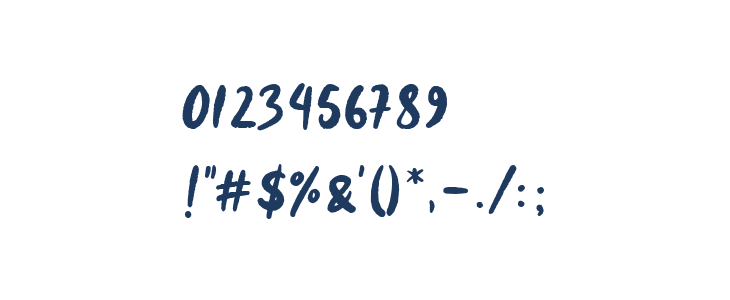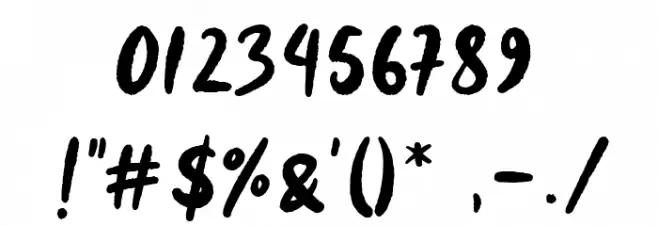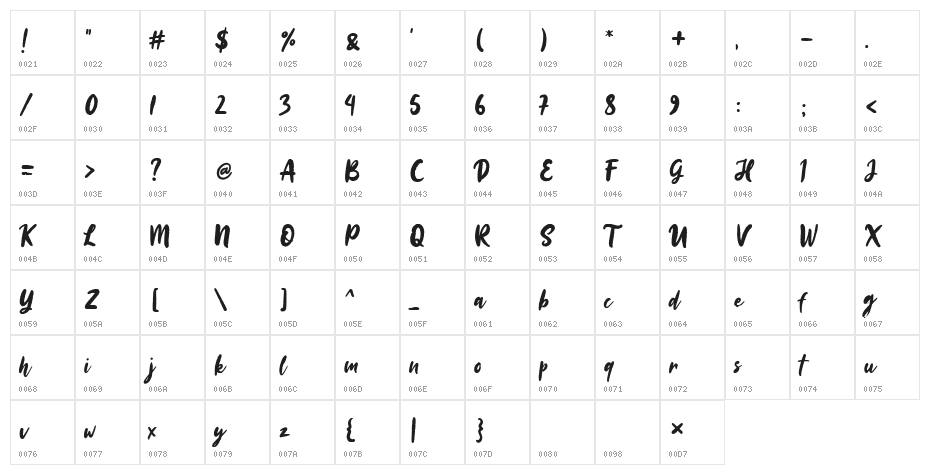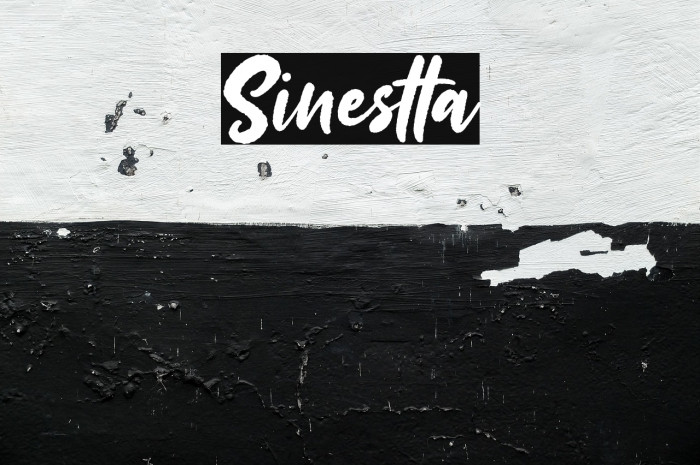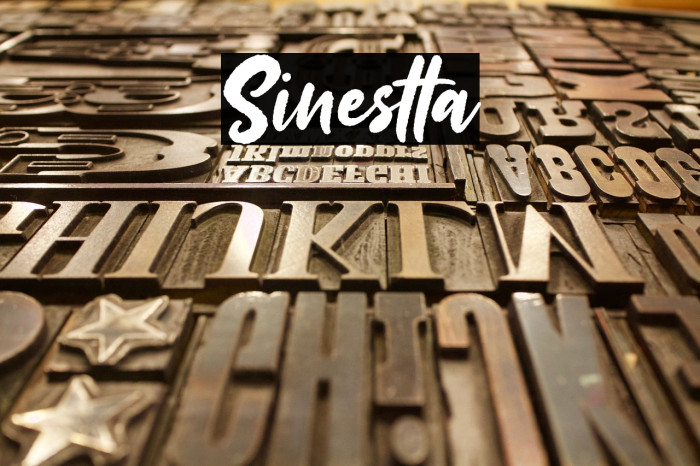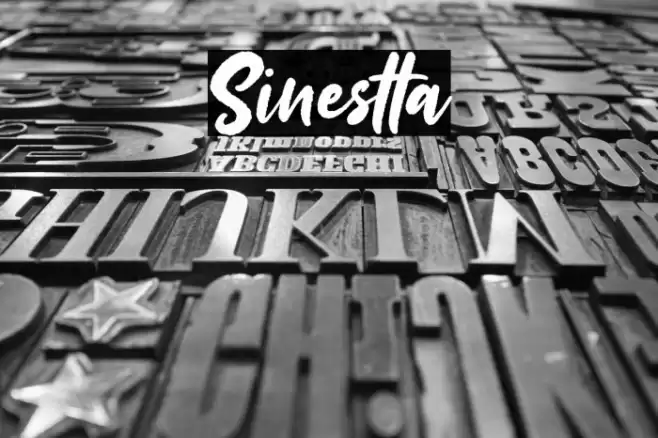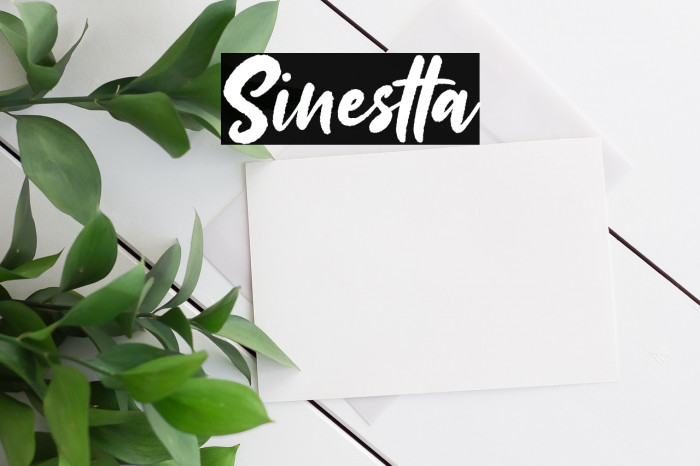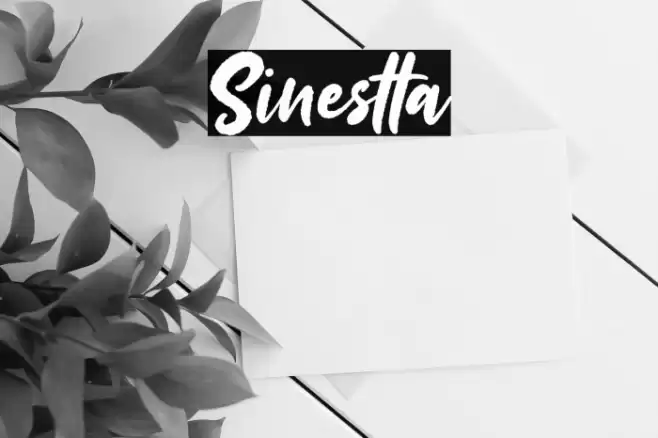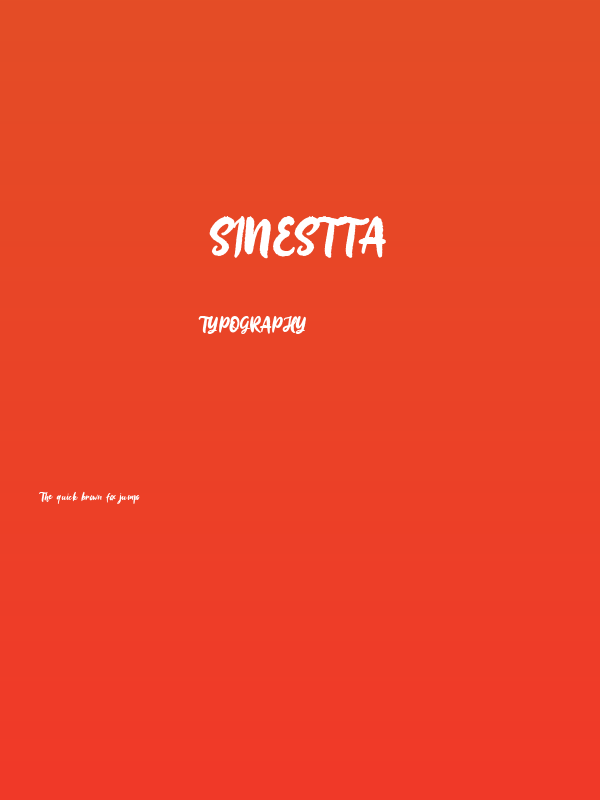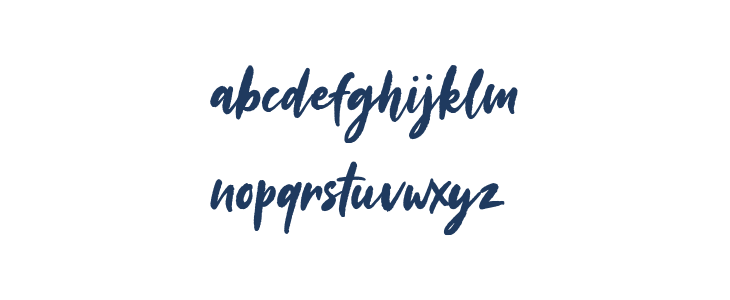
Sinestta Font
Sinestta Description
This font exhibits a bold, handwritten style with a dynamic and energetic appearance. The letters are crafted with a brush-like texture, giving them a lively and organic feel. The uppercase and lowercase characters maintain a consistent flow, while the numbers and special characters integrate seamlessly into the overall design. The strokes are thick and expressive, adding a sense of movement and personality. This font is ideal for projects that require a personal touch or a creative flair.
| Proposed Projects | Ideal for branding, packaging, posters, and invitations where a personal and creative touch is desired. |